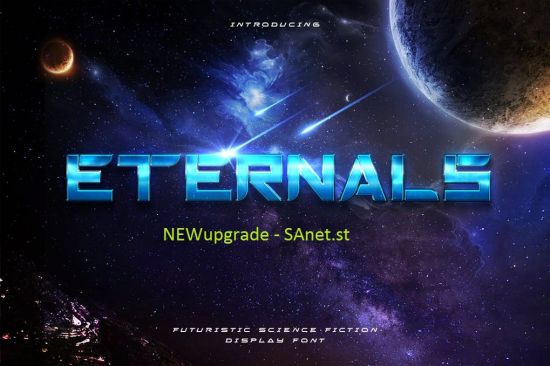
DesignOptimal - Eternals - Futuristic Space Display Typeface
DesignOptimal.com - Eternals - Futuristic Space Display Typeface
Introducing Eternals font. Are you looking for a bold and solid display font that has a futuristic and space technology feeling? We can help! Try to download our eternals Futuristic font. The font is suitable to use for many occasion such as game, music, movie title, brand, technology, space and many more :)